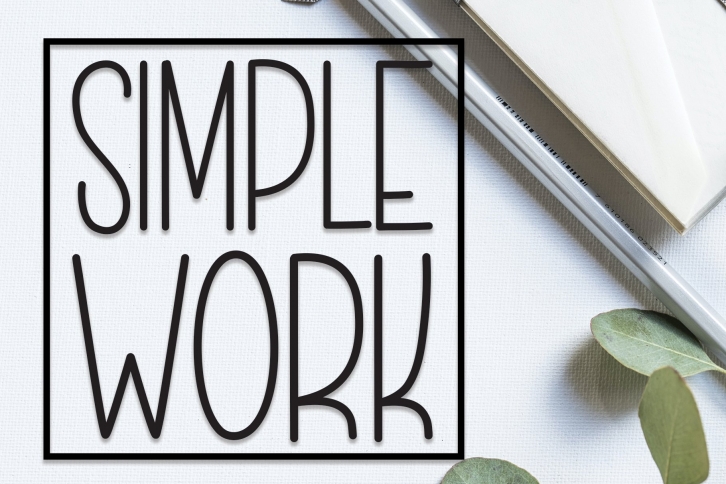
Simple Work is a trendy and unique font with an authentic style. It was designed by Scratchones and it's a great choice for creative people who need such a font. It was released on September 6, 2022 and the file size is 11.86 MB. Simple Work will add an organic vibe to any design idea!